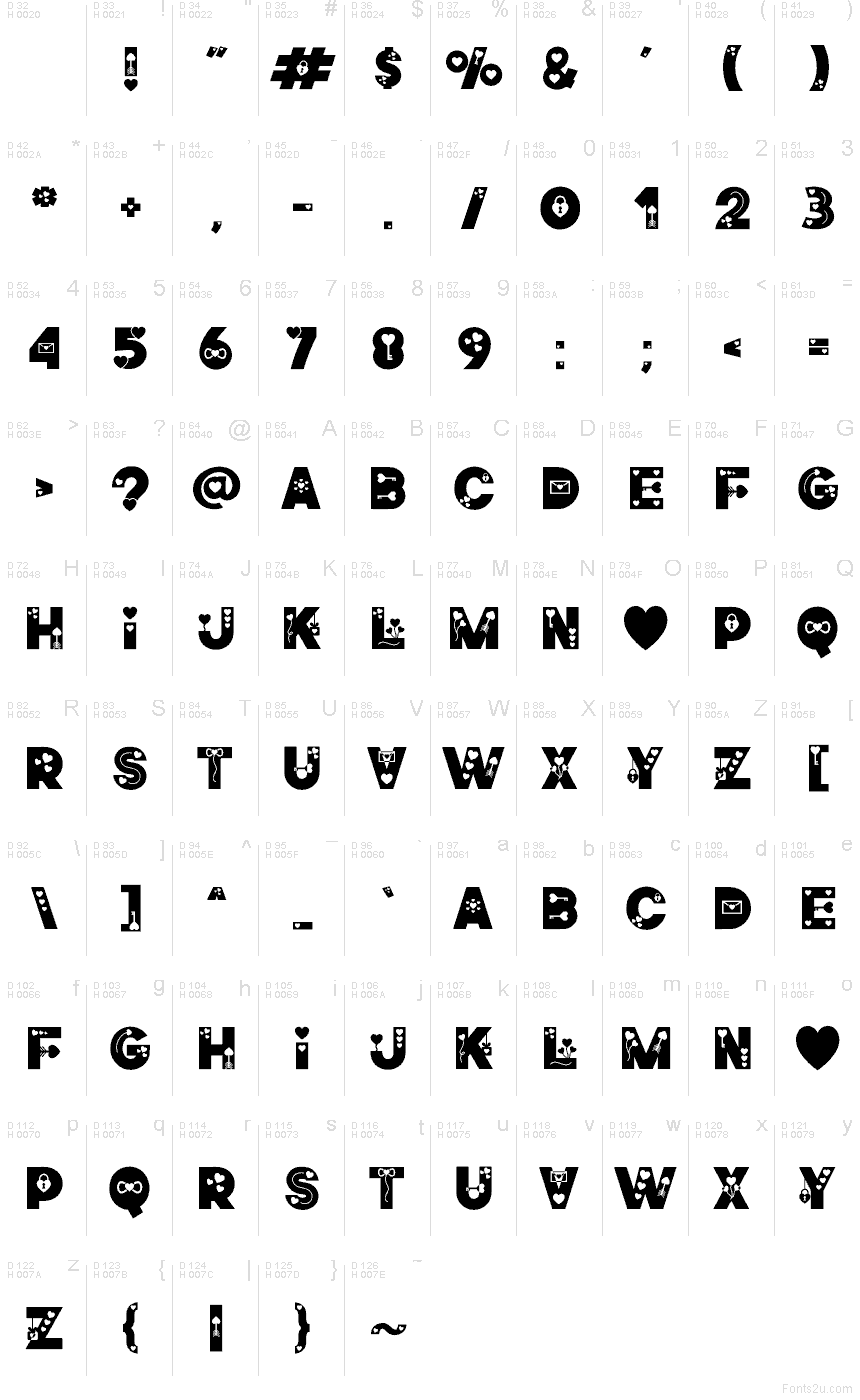
Honey Airo
Honey Airo font by Airotype is a free decorative valentine typeface that turns every word into a love note. Chunky, upright letters are punched full of tiny hearts and dots, creating a bold, inky texture that feels like cut-paper crafts and candy wrappers. The solid black shapes read clearly even at small sizes, while the playful heart icons keep things light, sweet, and a little bit cheeky.
Using Honey Airo, your layouts instantly feel ready for romance-heavy moments and cute celebrations alike. This free font shines on Valentine’s cards, classroom printables, party banners, kids’ crafts, social media graphics, and chocolate or gift packaging. Try pairing Honey Airo with a simple rounded sans serif for body copy, and let Honey Airo handle the big, love-soaked headlines.